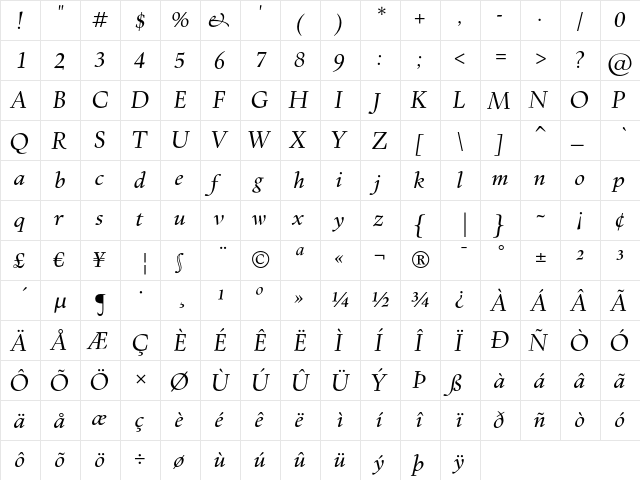
Kennedy Book Italic
Design Context for Kennedy Typeface
Kennedy is a composed and adaptable typeface that performs quietly and consistently across a wide range of design contexts. Its italic angle brings a sense of urgency and motion to the letterforms.
Pro Tip: Try Kennedy for annotation and caption copy alongside an upright companion — the contrast in angle creates a dynamic but ordered typographic system.